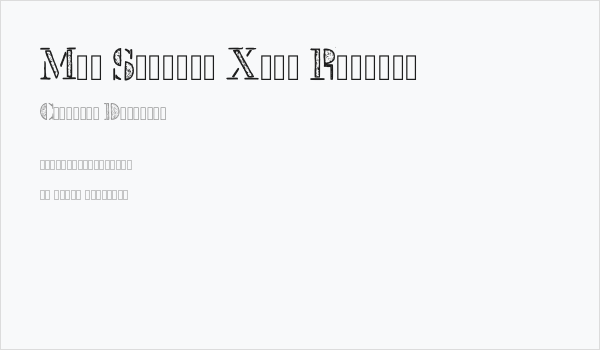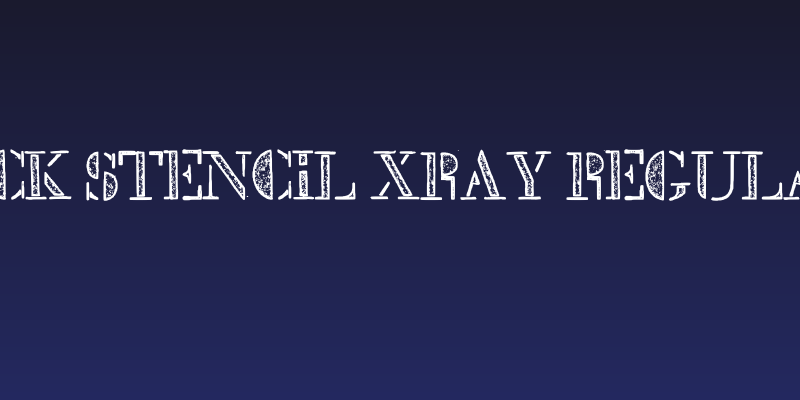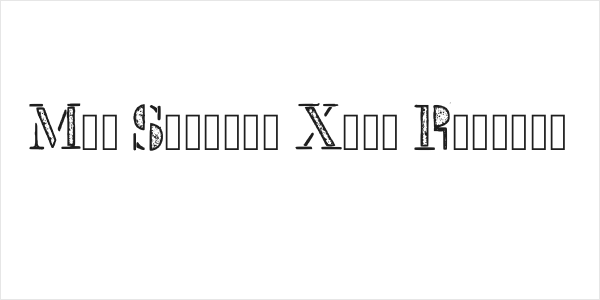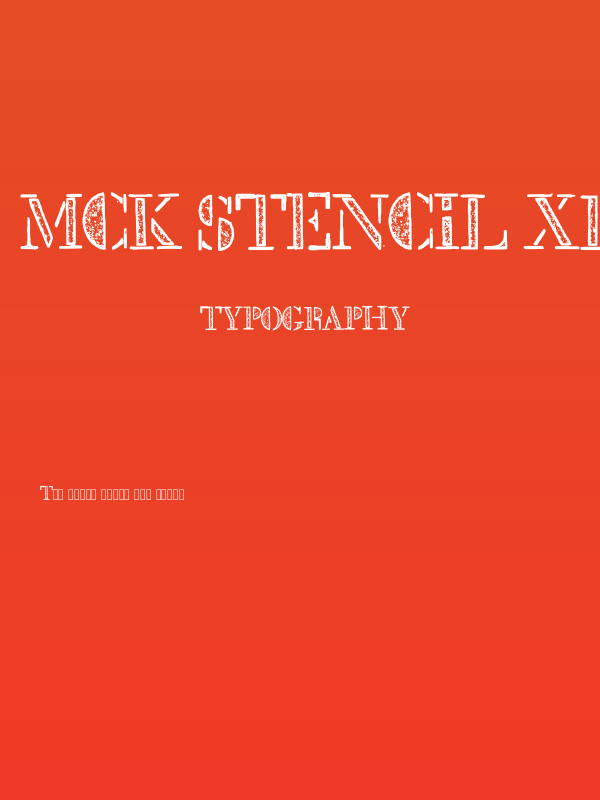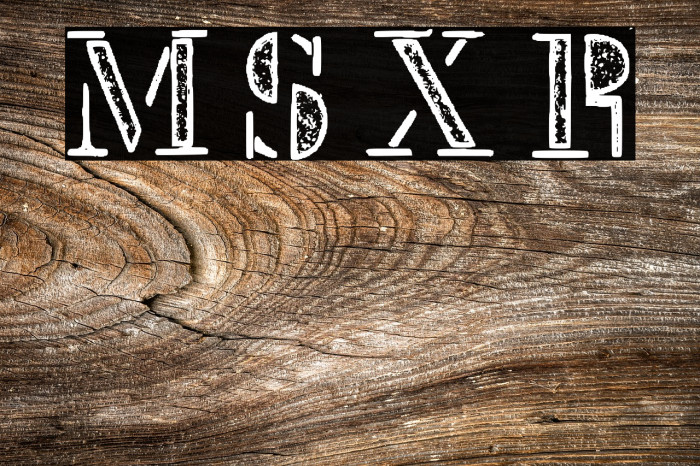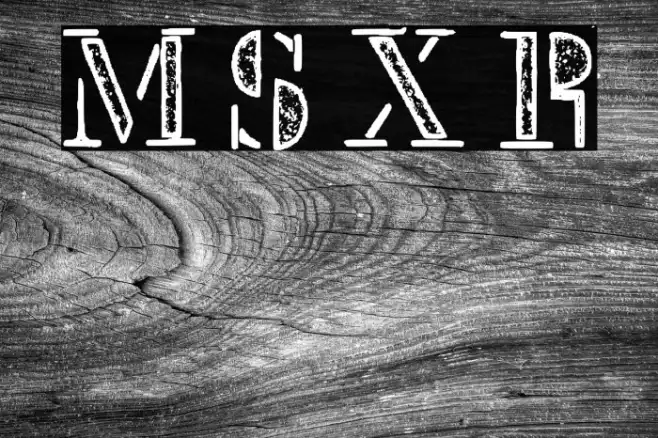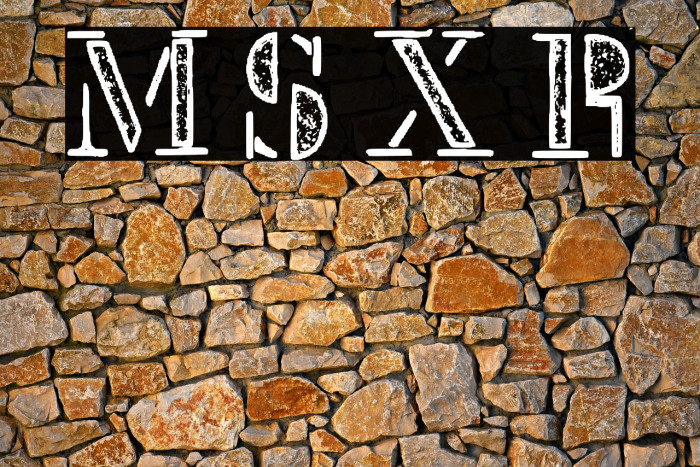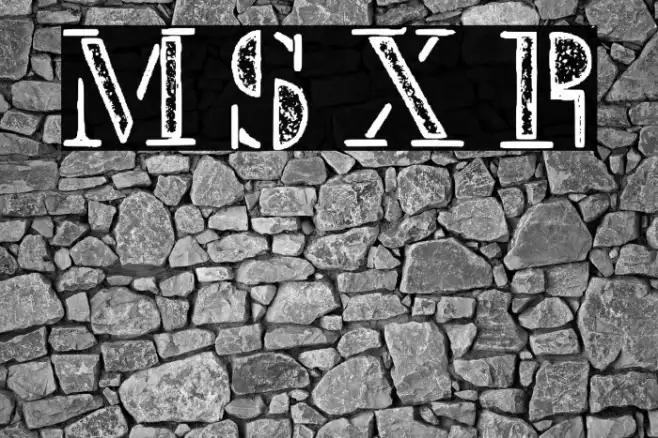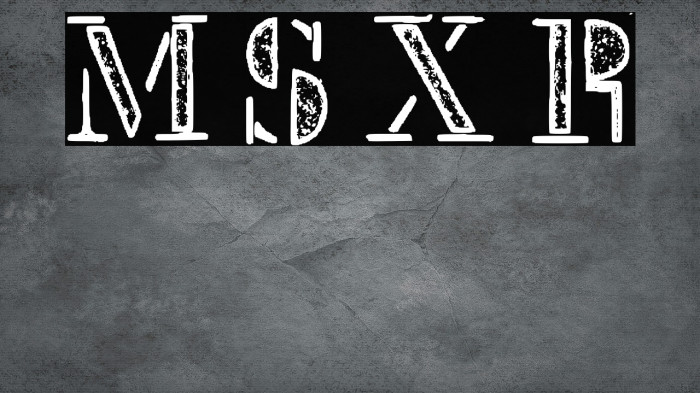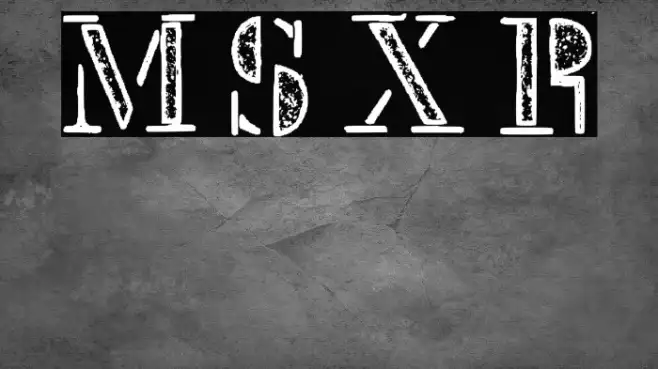
Mck Stencil Xray Regular Font
Mck Stencil Xray Regular Description
This font features a bold, stencil-like design with a distressed texture that gives it a rugged, industrial feel. The uppercase letters are prominently displayed with cut-out sections typical of stencil fonts, adding a sense of utility and practicality. The texture within each character adds a layer of depth, making it suitable for projects that require a gritty or vintage aesthetic. The font's design is reminiscent of military or industrial signage, where clarity and impact are essential. Its boldness ensures that it stands out, making it ideal for headlines or titles that need to capture attention.
| Overall Style | Industrial, Vintage |
| Proposed Projects | Ideal for military-themed designs, industrial branding, posters, and signage. |